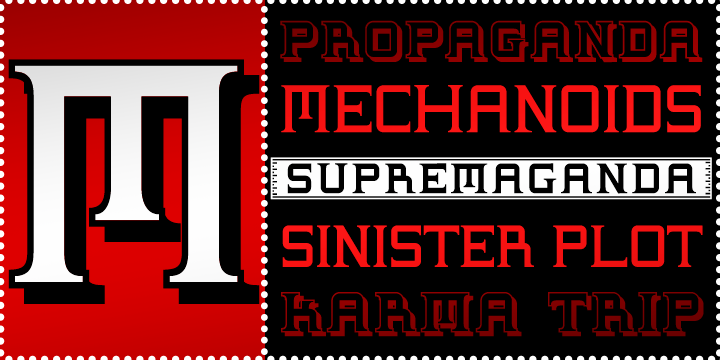
• Supremaganda BTN
Supremaganda is a typestyle developed after reading too much propaganda.
It is a very serious, masonic-looking typestyle complete with a drop shadow, and a slick banner variant.